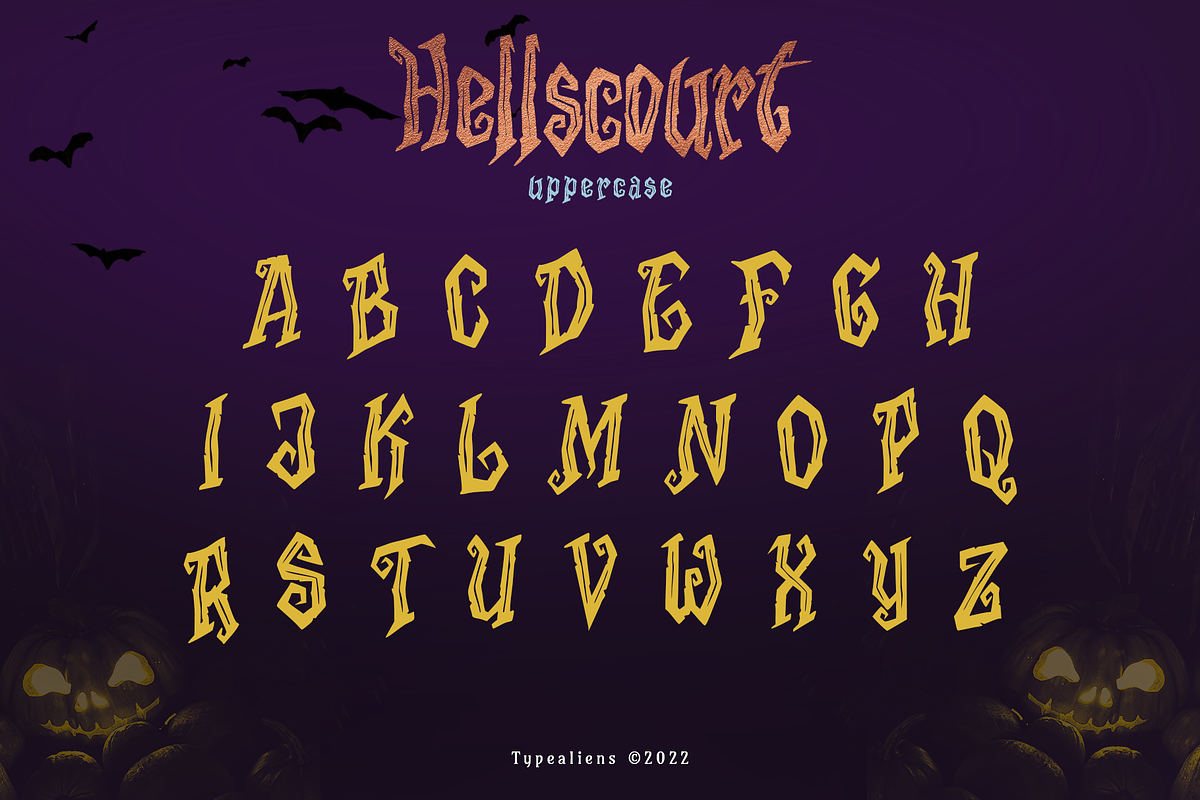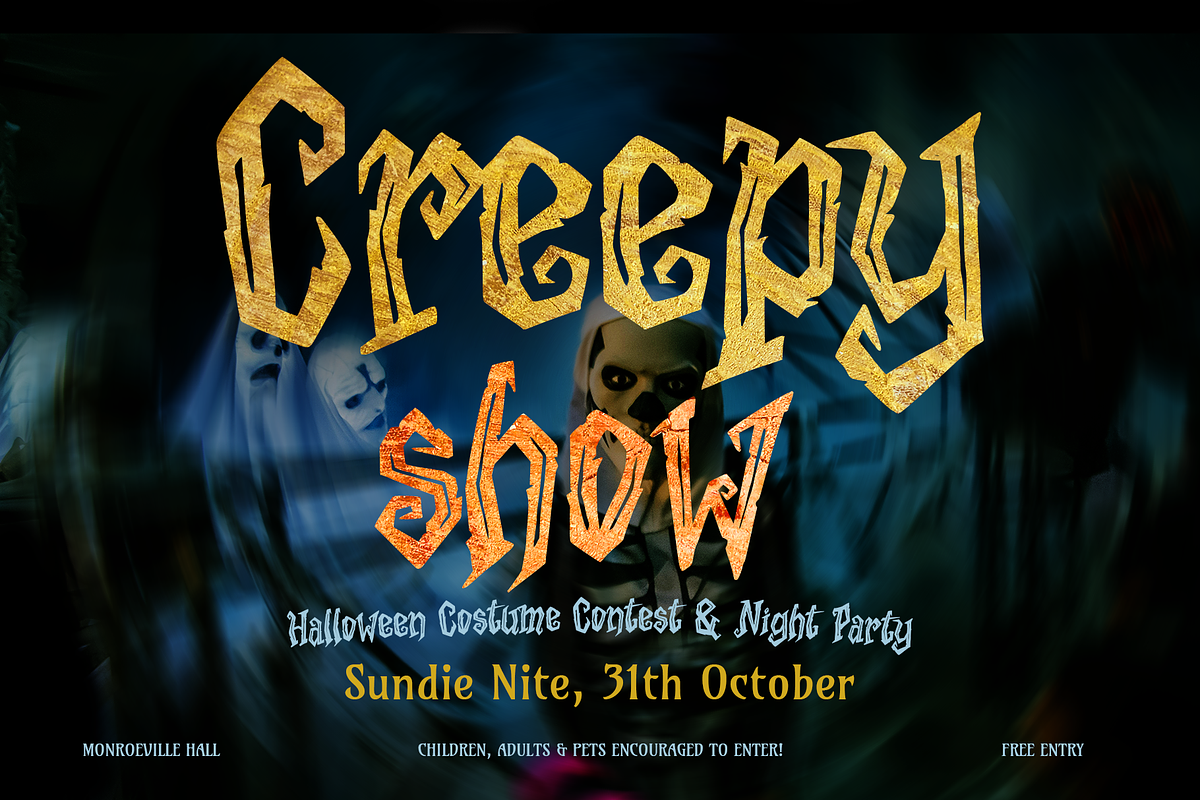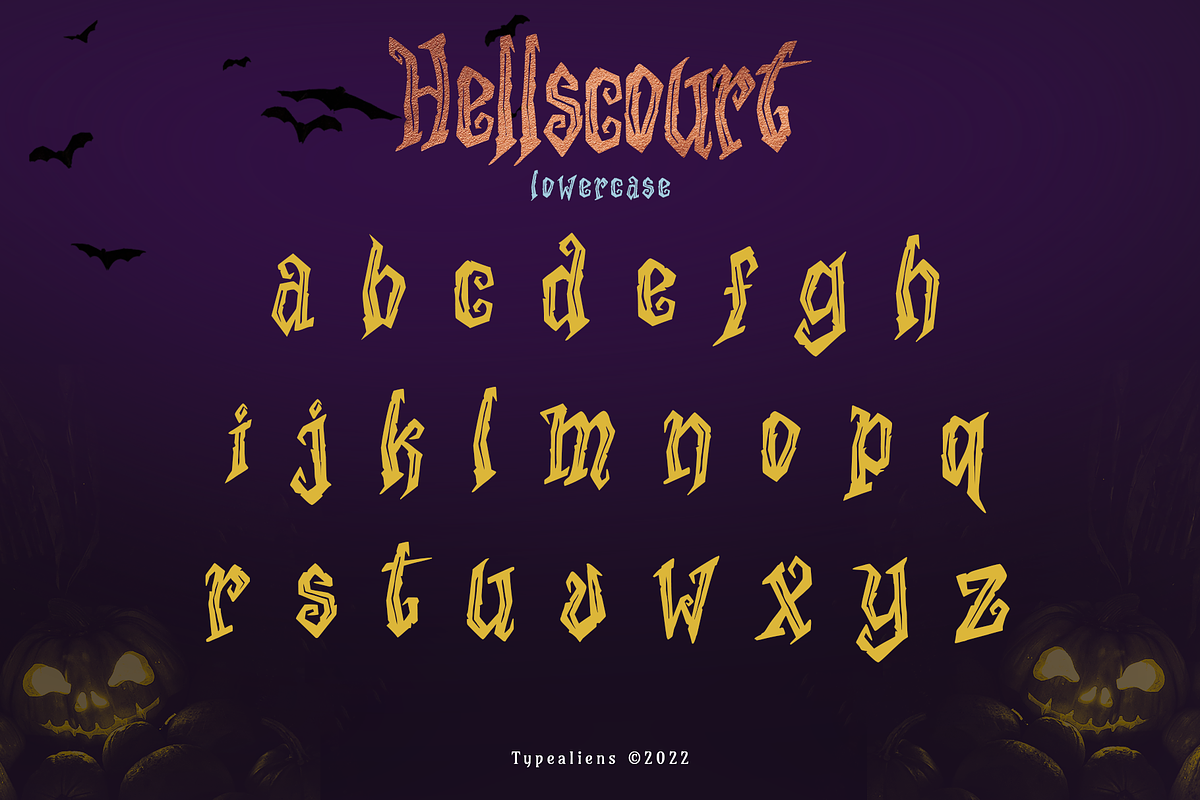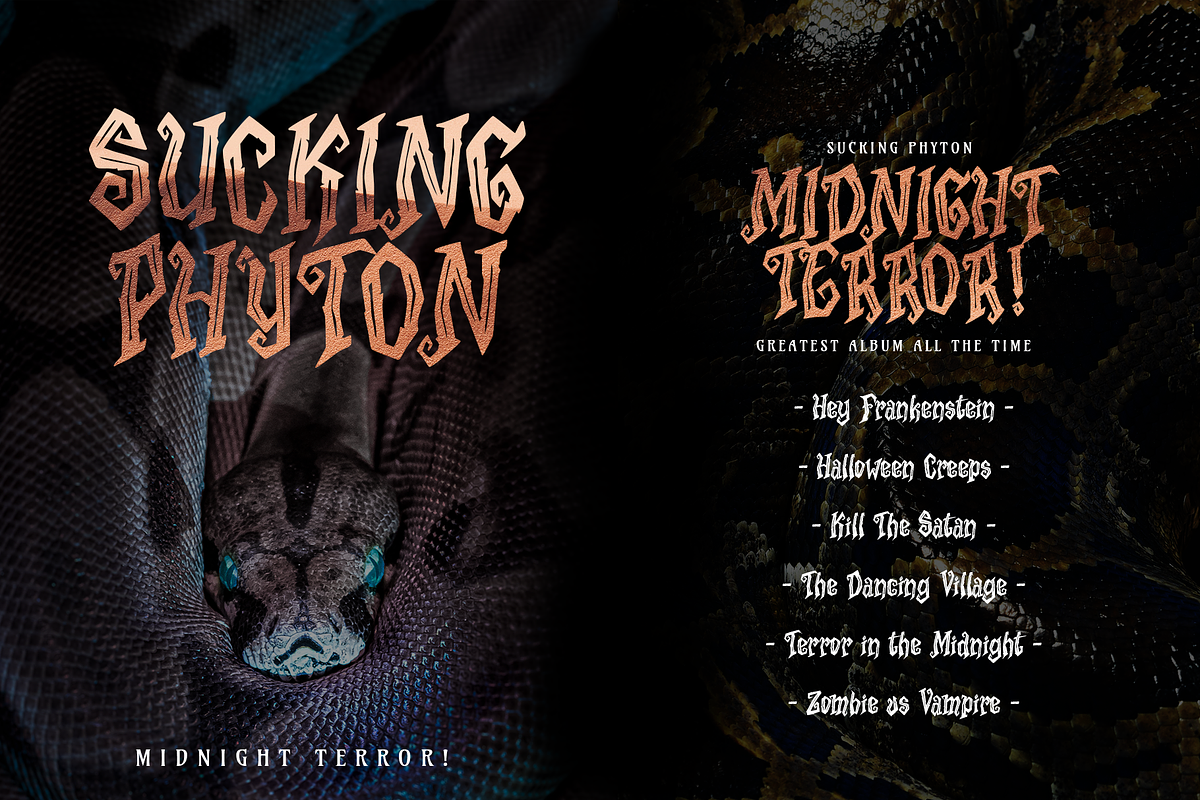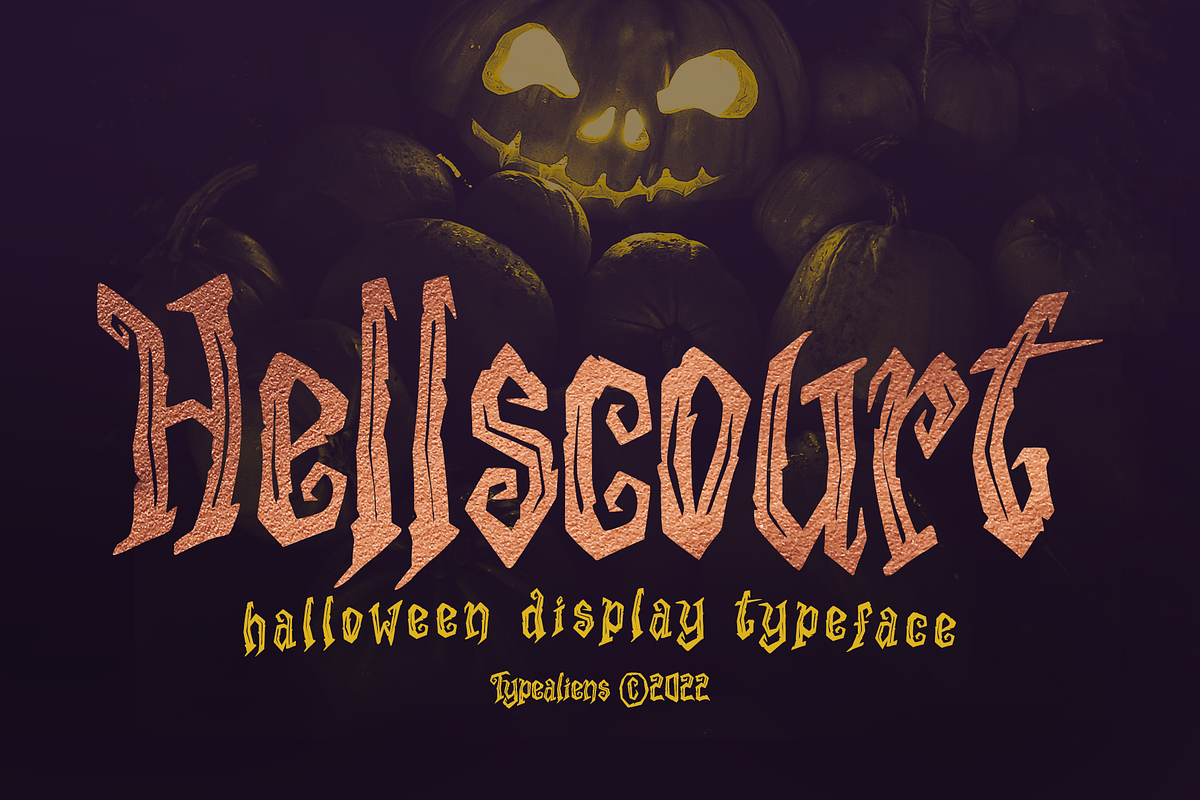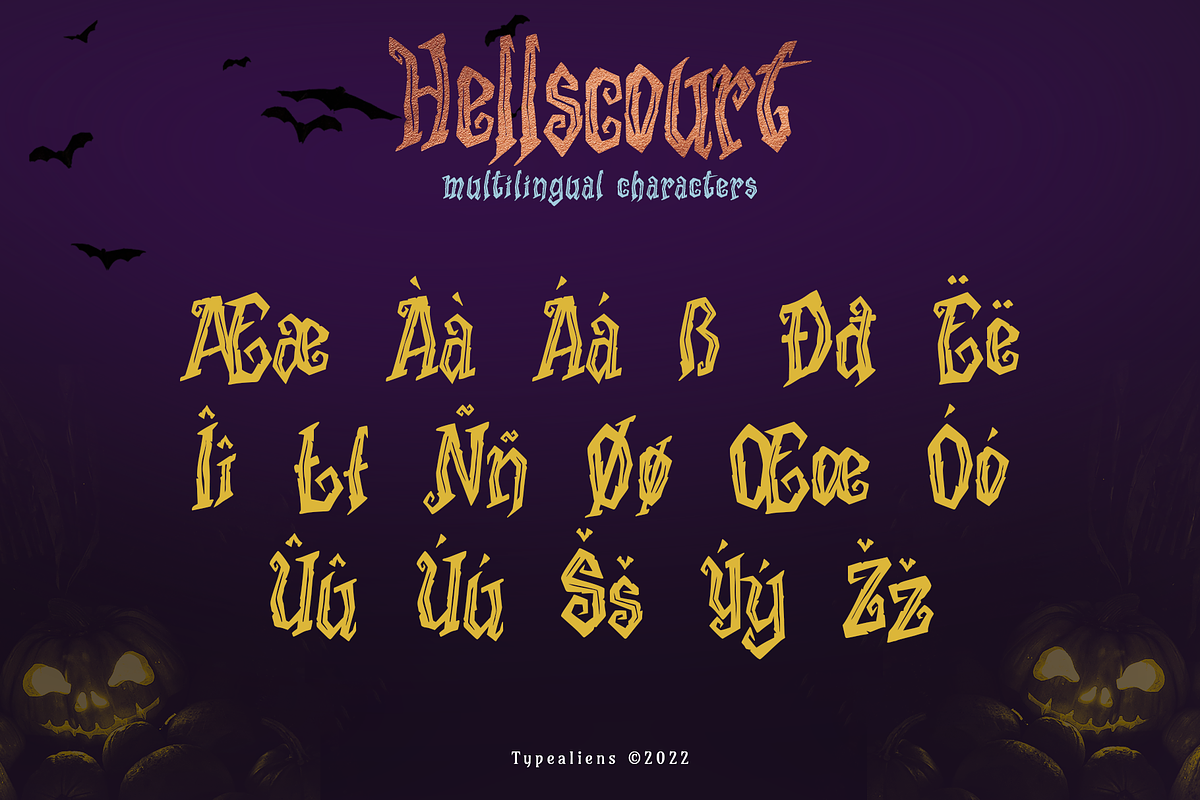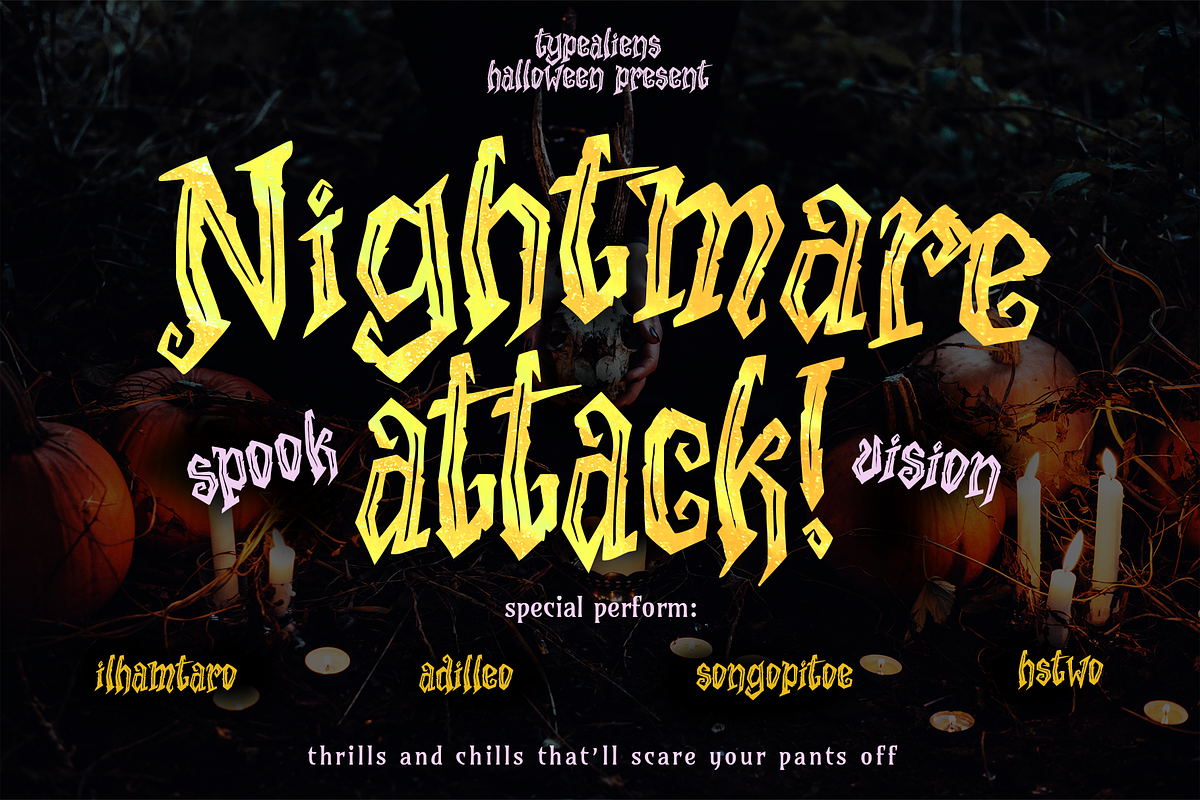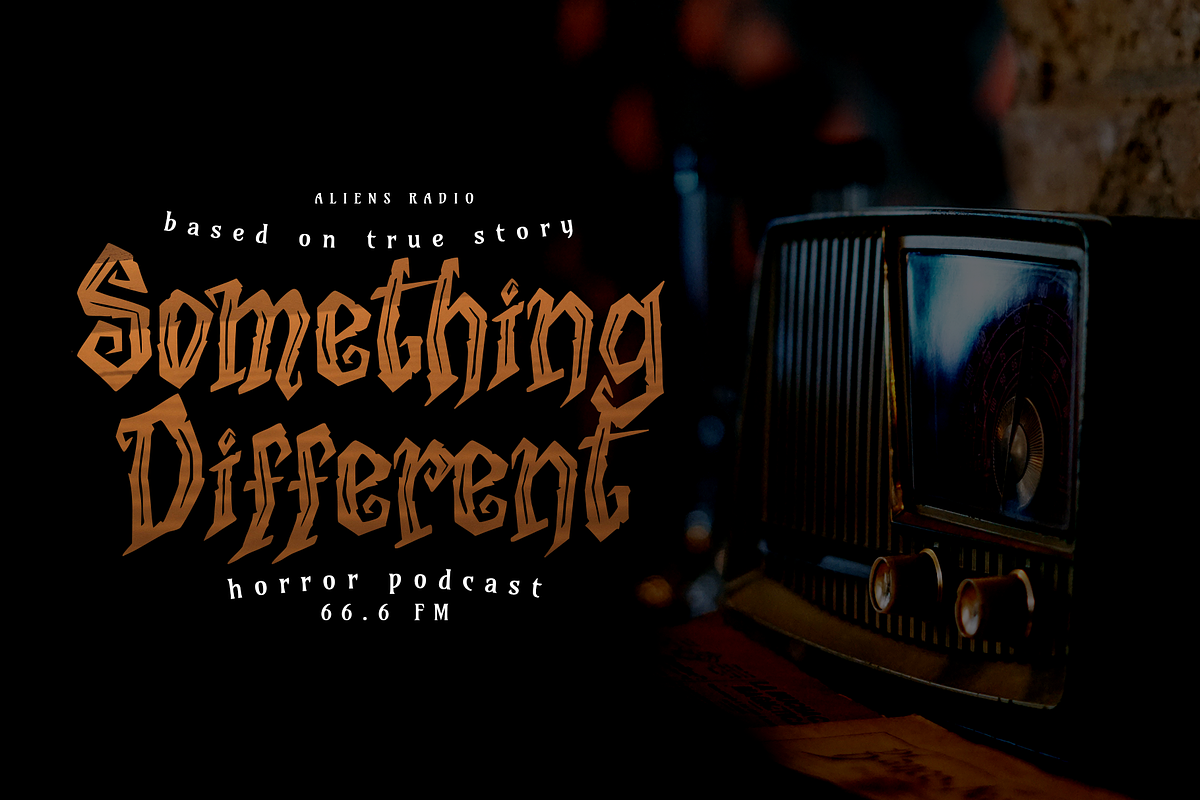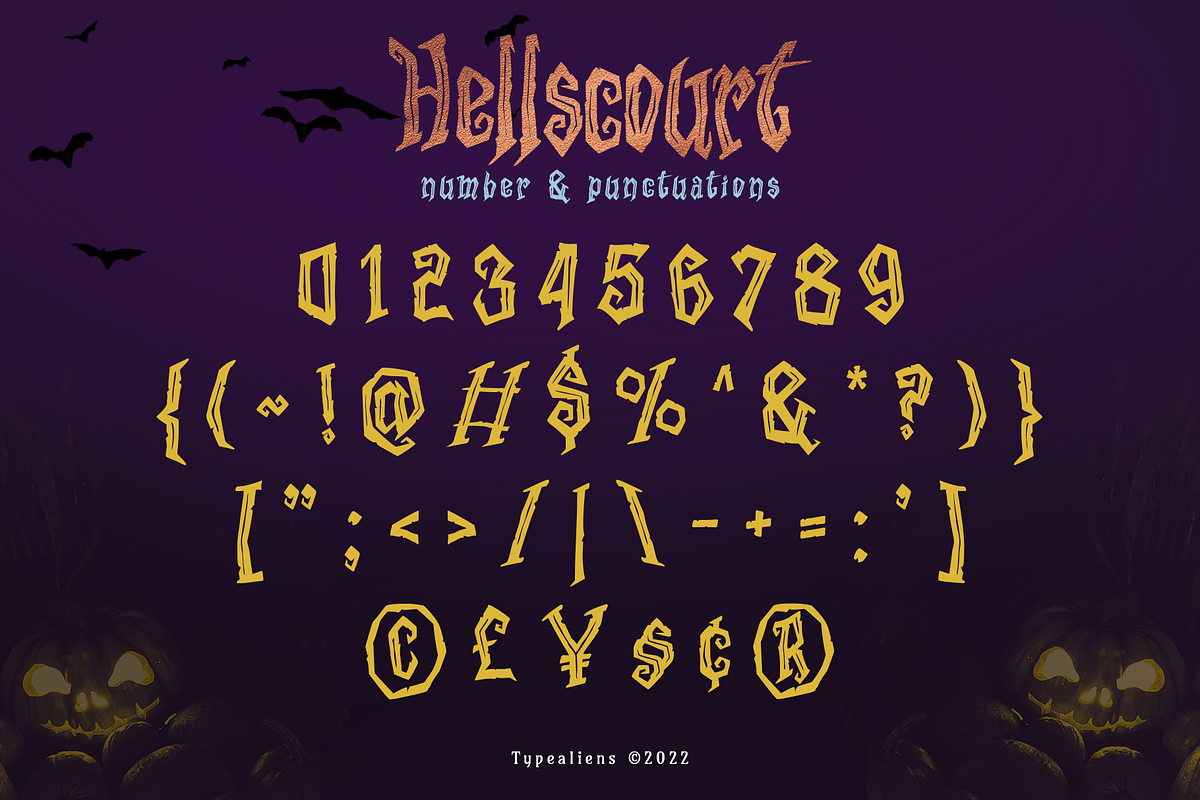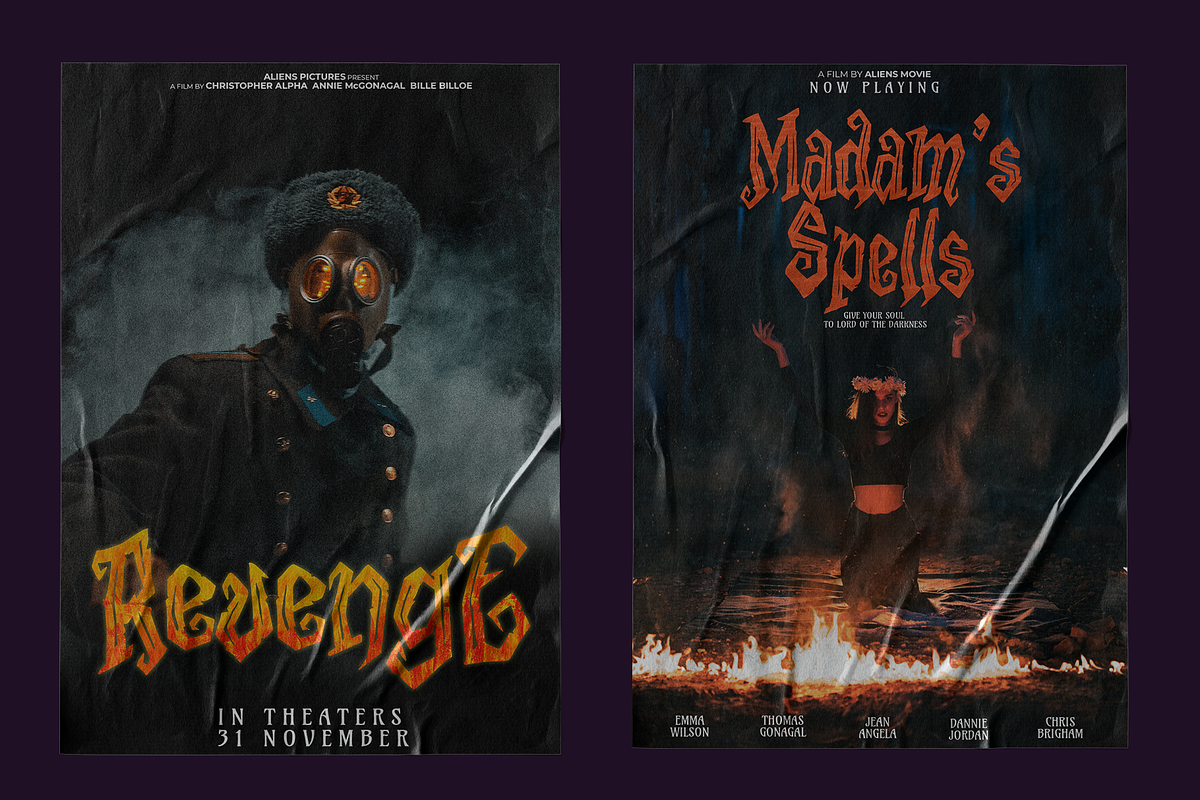
Hellscourt
HELLSCOURT
Hellscourt is a display font intended for horror themes such as halloween events, horror movies and other horror events. With a rough style, adding to this font is even more scary, because technically it is digital hand lettering, so it adds to the impression that this font is handcrafted and the vector process does not refine the rough parts so that it still has a rough impression.